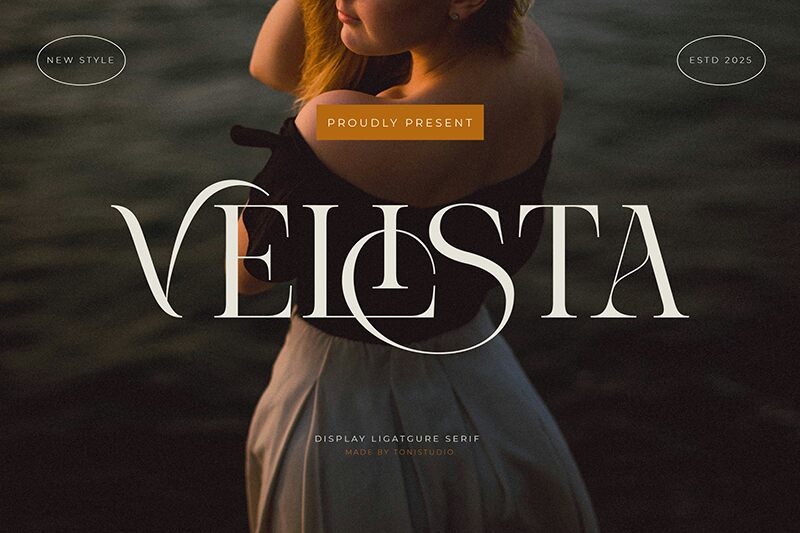
VELISTA
Velista font by ToniStudio is an elegant and sophisticated free serif font with refined curves, a modern style, and professionally high contrast text capabilitites. Its superior strokes make it part of an elite group of eye-popping fonts that are perfect for drawing attention to particular texts.
Still, the best part about Velista is its applicability. It can be freely used in general or business presentations, online and printed ads design (magazines), fashion branding projects, book covers design, and packaging ideas development.